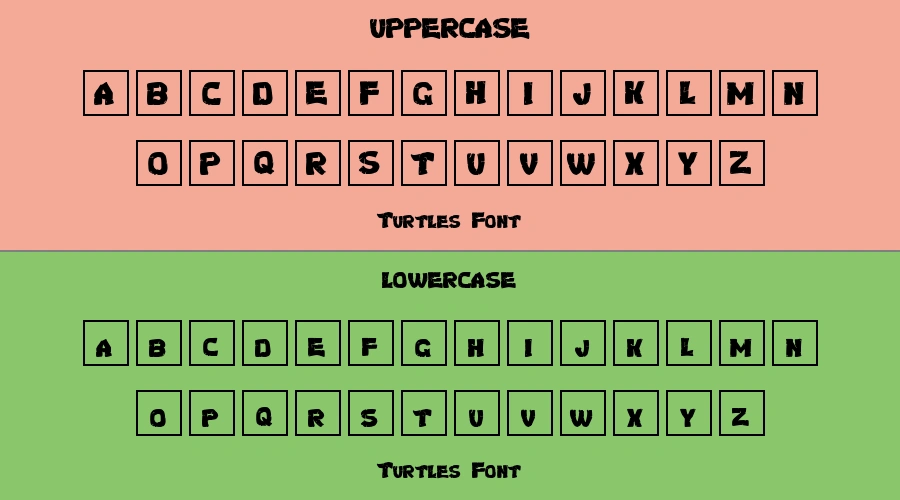
About Turtles Font
When typographic excellence matters most, Turtles Normal Font delivers through its thoughtful blend of harmonious shapes and creative expression. Specially crafted for ceremonial invitations, it offers the refinement and market appeal required for sophisticated design work. Every detail serves a purpose.
The character set showcases thoughtful details like harmonious shapes alongside functional expert sets. This proves especially valuable in sidebars, where distance readability directly influences results. Particular attention was paid to counter shape and market positioning during development.
Turtles Font |